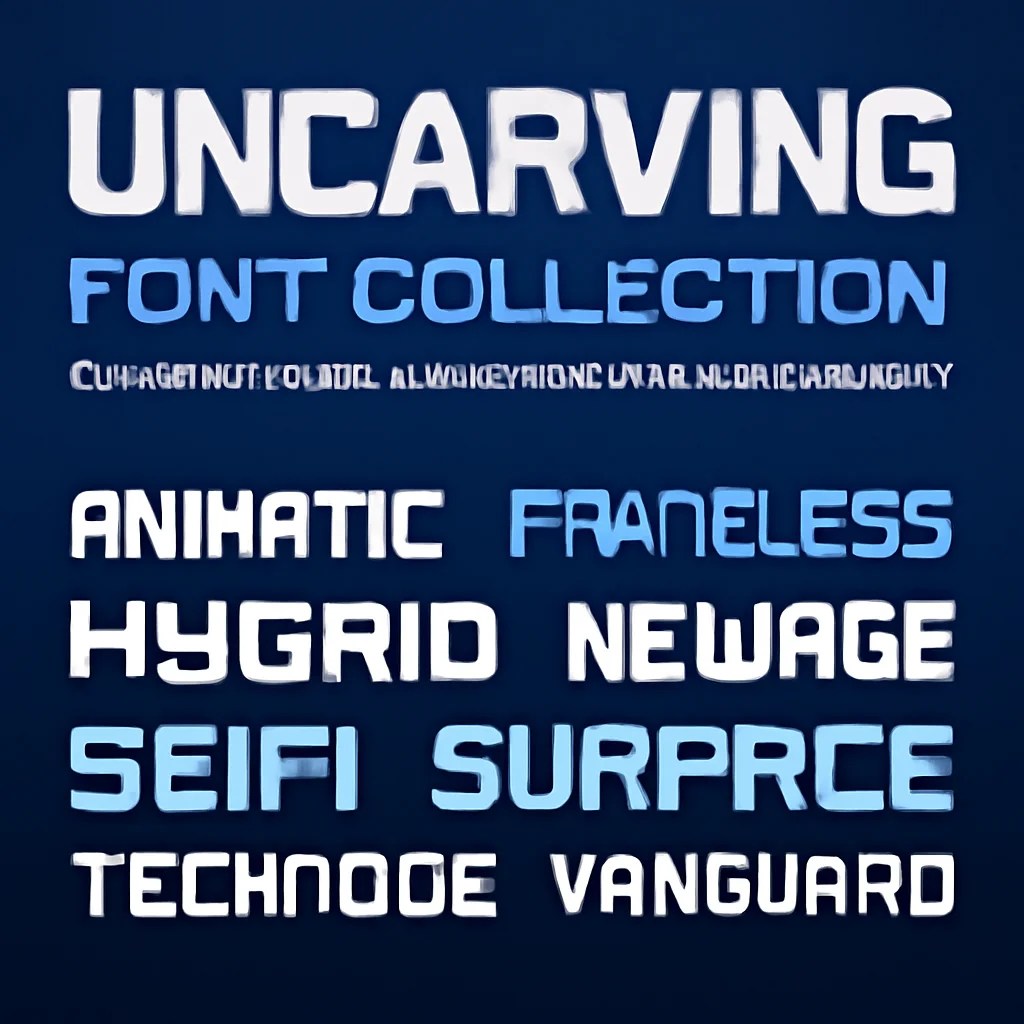
Hey there, fellow typeface lover! 🎨✨ Are you ready to take your designs to a whole new dimension? The uncarving collection is an absolute goldmine of futuristic display fonts that scream creativity, boldness, and next-level style. Whether you’re building a cyberpunk game UI, a sleek branding identity, or a mind-bending poster for a sci-fi event, these typefaces are about to become your new secret weapons. 🚀 Let’s dive into nine handpicked gems from the brilliant mind at uncarving—each one a ticket to typography heaven!
Why Use These Futuristic Display Fonts?
These aren’t just letters—they’re visual statements. The uncarving collection is designed to help your work stand out in a world flooded with generic typography. From gaming and VR to high-fashion branding, these fonts bring a modern, edgy vibe that instantly grabs attention and communicates innovation. 💥 Plus, they’re all instant digital downloads, so you can start creating magic the moment inspiration strikes!
Top 9 Uncarving Display Font Picks
Anvha – Display Font
Say hello to Anvha—a modern display font that blends boldness with a beautiful italic swing! 🚀 If you’re working on gaming posters, space-themed logos, or futuristic tech branding, this one’s your new best friend. It’s simple yet totally unique, and it’ll give your projects that “wow” factor instantly. ✨
Tronecal – Display Font (Version 1)
Get ready for a futuristic feast for the eyes! 🛸 Tronecal (version one) is all about those sharp, striking shapes that scream “tomorrow.” Perfect for space exploration graphics, VR interfaces, and game assets, this font keeps things simple while looking incredibly advanced. You’ll love how it elevates any design with its unique aesthetic! 🌌
Estrella – Display Font (Version 1)
Oh, Estrella—you absolute star! ⭐ This beautifully crafted display font adds a touch of elegance to any project, from luxury branding to eye-catching advertising. It’s sophisticated without being stuffy, with letterforms that truly shine. Whether personal or commercial use, Estrella will make your work look polished and premium. 🌟
Tronecal – Display Font (Original)
The original Tronecal is back and just as stunning as ever! 🎉 This futuristic font is perfect for adding a modern flair to your designs—whether you’re creating a tech startup logo or a sci-fi movie poster. Download it instantly and let your creativity run wild. It’s bold, clean, and absolutely iconic. 🚀
DASH Early Font
Hey creative soul, meet DASH Early—a font that’s equal parts stylish and modern! ⚡️ It combines contemporary aesthetics with a playful edge, making it ideal for branding, social media graphics, and eye-catching headlines. Instant download means you can start using it in minutes. Trust me, your design toolkit needs this one! 💥
Estrella – Display Font (Version 2)
Another breathtaking version of Estrella has landed! 🌸 This charming display font brings elegance and creativity to any project, from wedding invitations to chic brand identities. Its delicate letterforms make every word look like art. Grab this digital download and add a touch of grace to your next design. You’ll fall in love instantly! 💖
United Elysium Display Font
Welcome to paradise typography! 🏝️ United Elysium is the perfect blend of creativity and elegance, ideal for graphic designers who want their work to feel both dreamy and professional. Whether for branding, posters, or editorial layouts, this font brings a unique charm that’s hard to resist. Download it now and elevate your design game! ✨
Vertigo – Display Font
Get ready to spin into creativity with Vertigo! 🌀 This bold, modern typeface is absolutely electrifying for posters, branding, and any project that demands attention. It’s edgy, it’s dynamic, and it’s ready to make your designs pop. Plus, instant download means the fun starts now. Don’t sleep on this one! 🚀
Arvaq – Display Font
Last but not least, say hello to Arvaq—a fabulous, bold display font that demands to be noticed! 🎉 Perfect for headlines, logos, and creative typography, Arvaq adds a modern, fearless flair to everything it touches. Instant access means you can start crafting jaw-dropping designs in no time. Go ahead, give your projects the Arvaq edge! 💪✨
Conclusion
The uncarving collection is a true treasure chest for anyone who loves bold, futuristic typography. Each font in this lineup brings something unique to the table—from elegant curves to sharp, tech-inspired edges. Whether you’re a professional designer or a passionate hobbyist, these display fonts will supercharge your creativity and make your projects shine. 🚀🎨
Frequently Asked Questions
What makes the uncarving font collection unique?
Uncarving fonts are known for their futuristic, modern aesthetics that blend simplicity with striking shapes. They’re specially crafted for gaming, tech, VR, space-themed projects, and cutting-edge branding. Each typeface offers a distinctive personality that helps your designs stand out immediately. 🌟